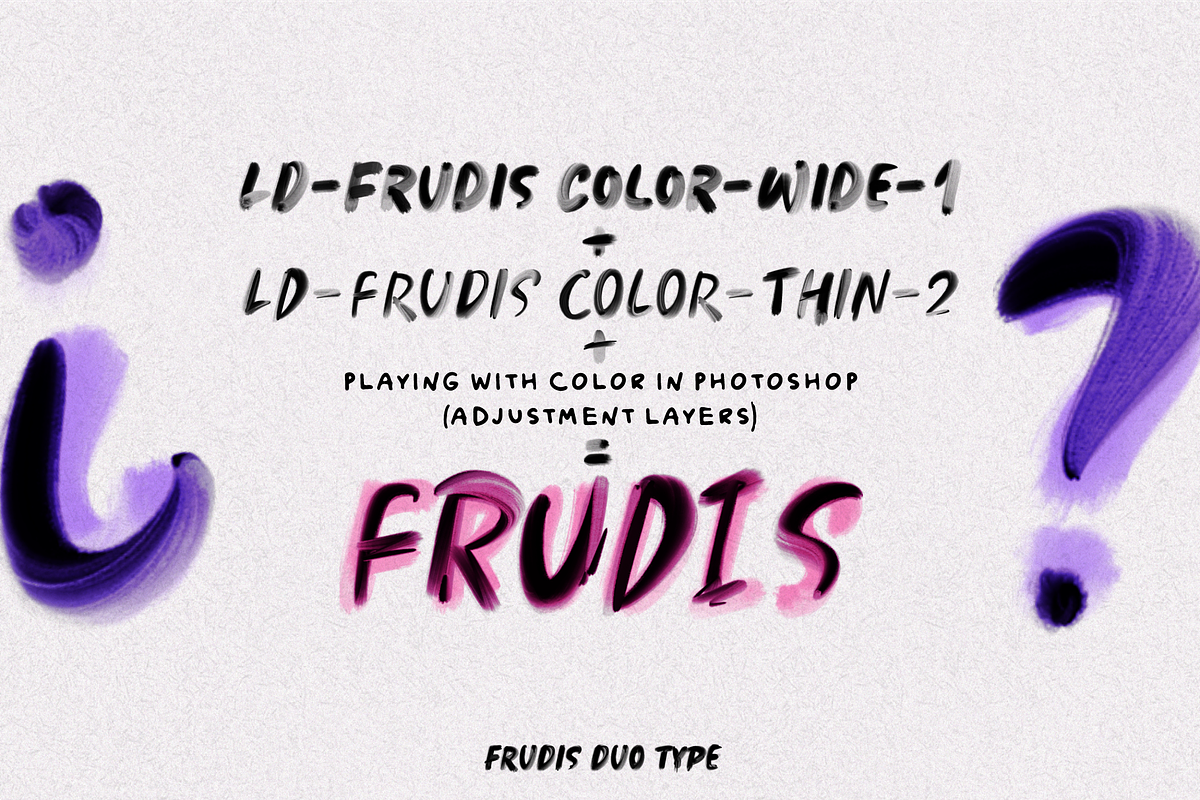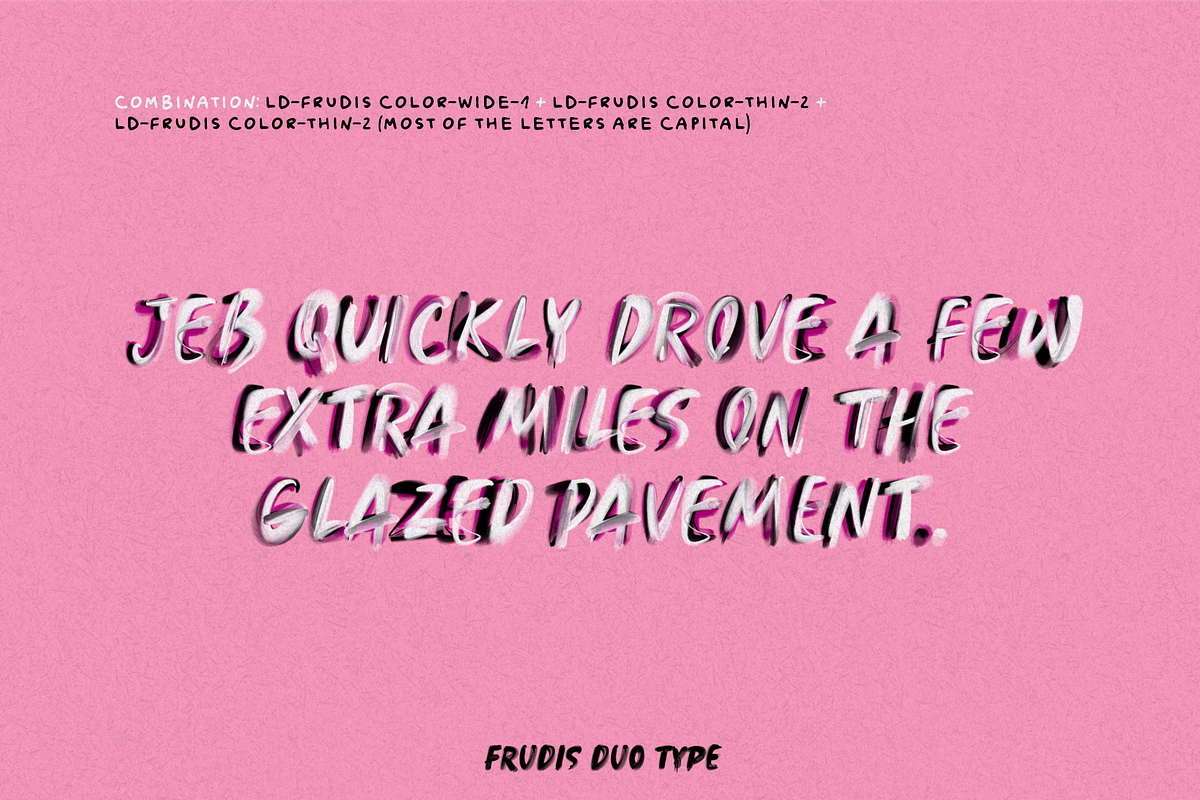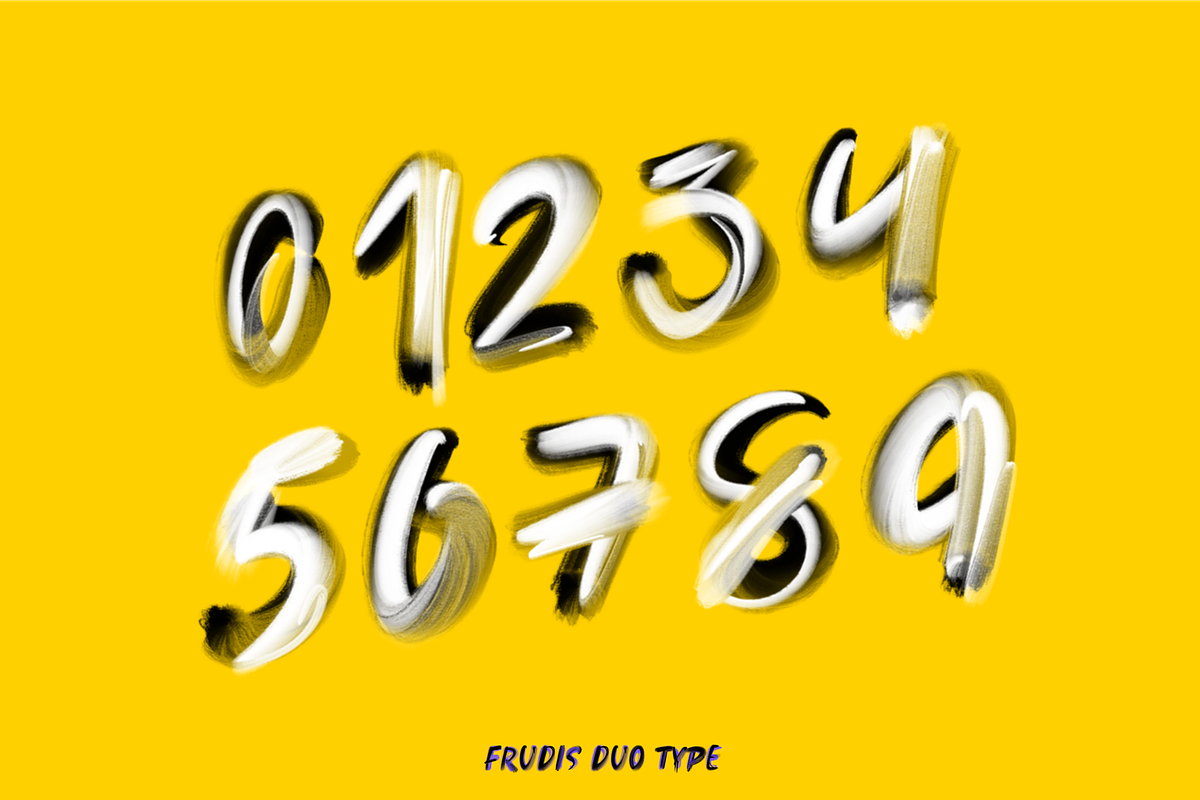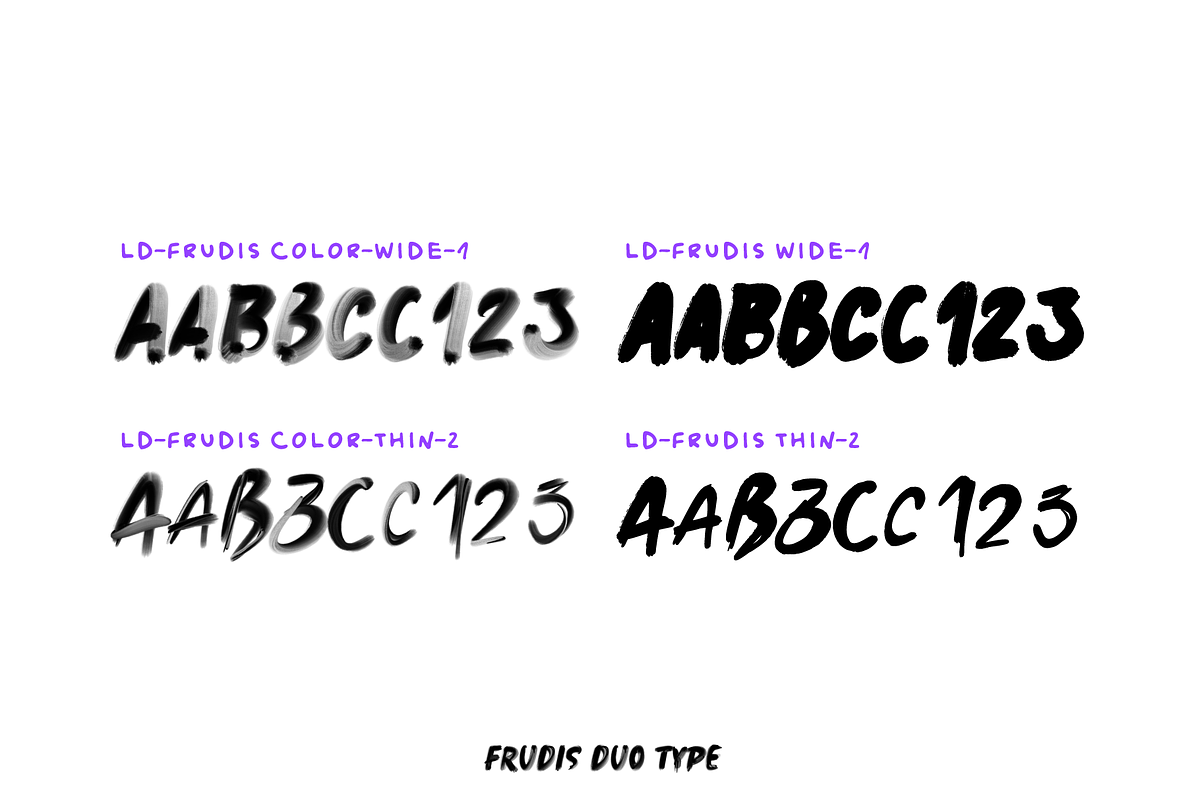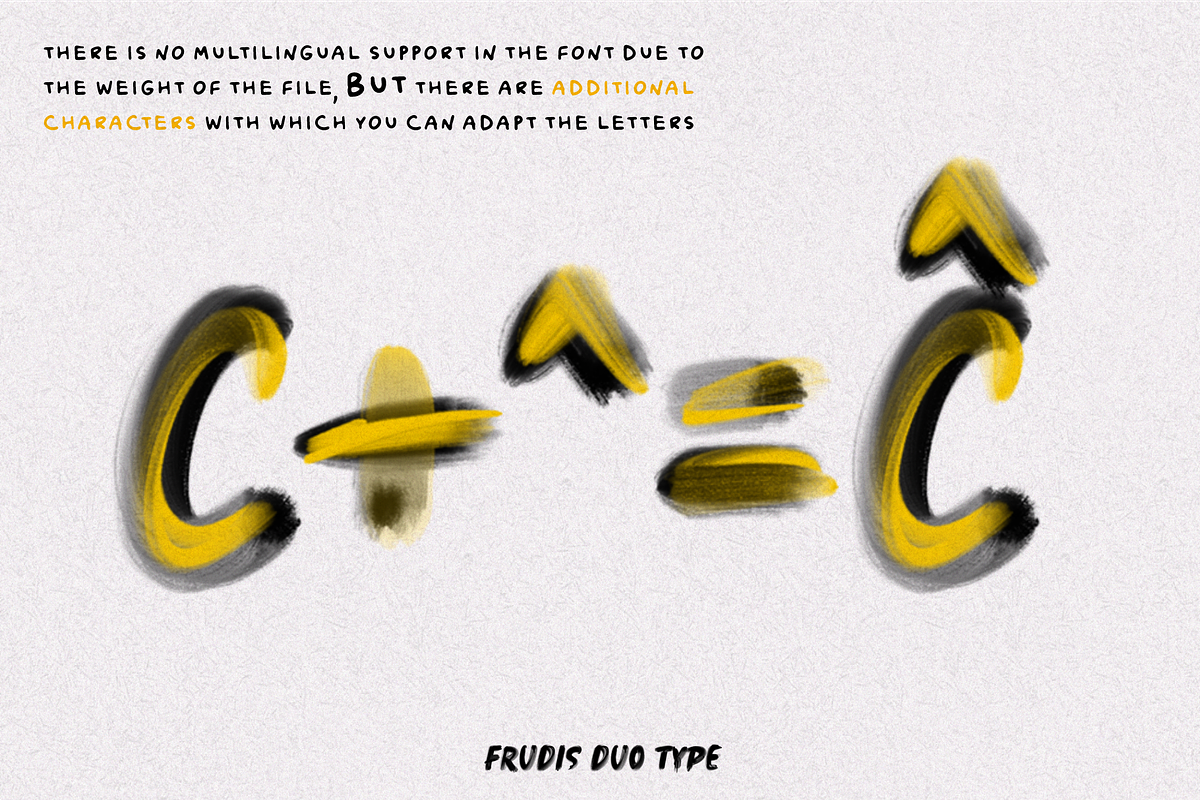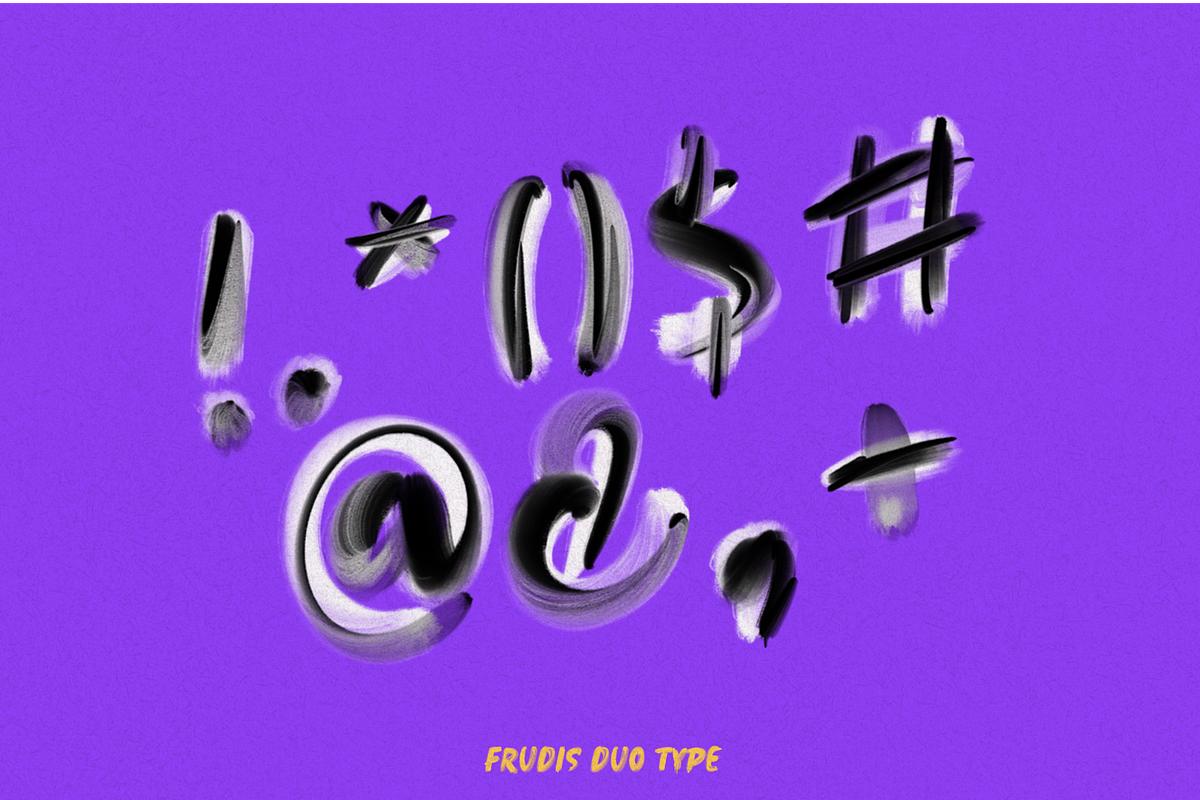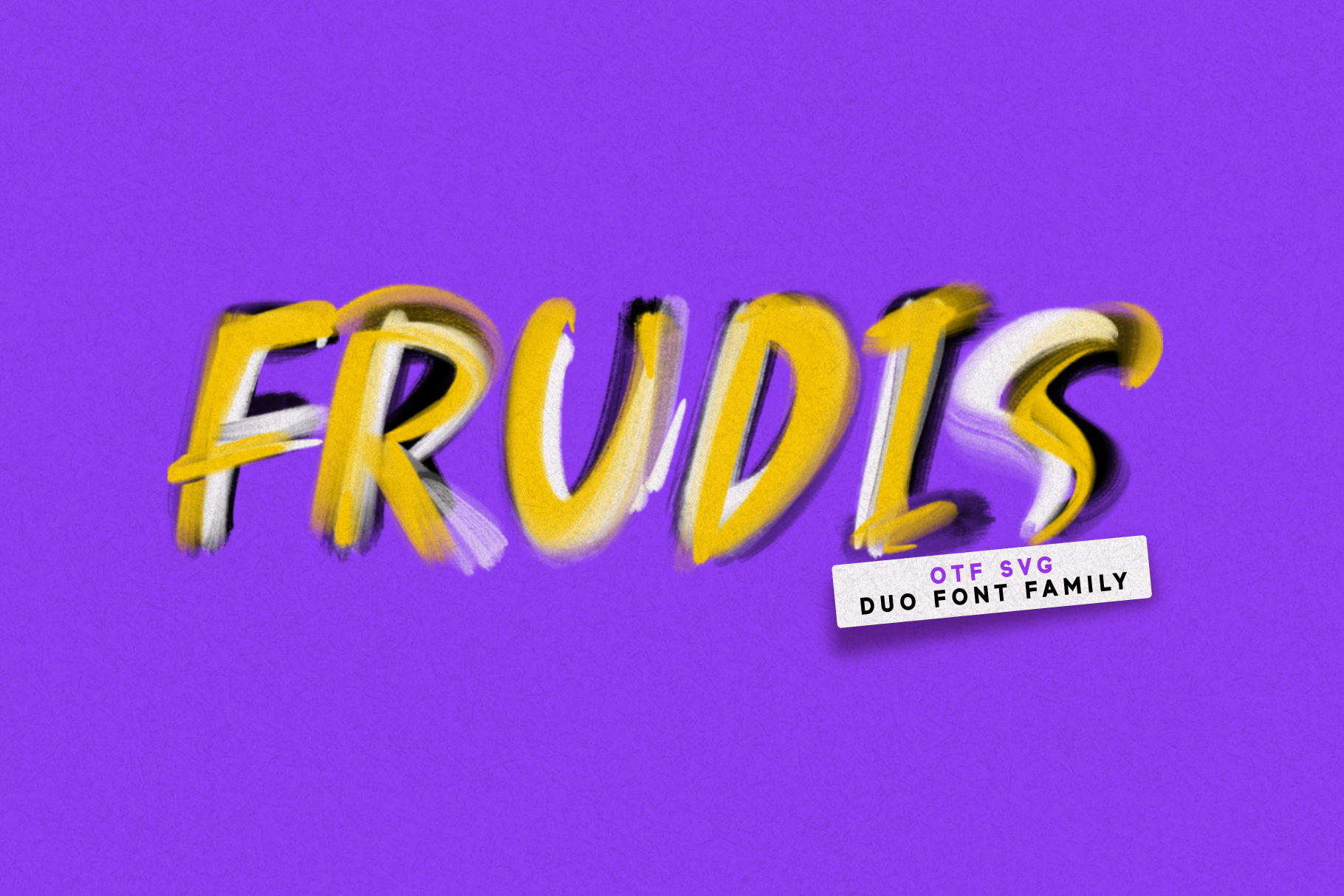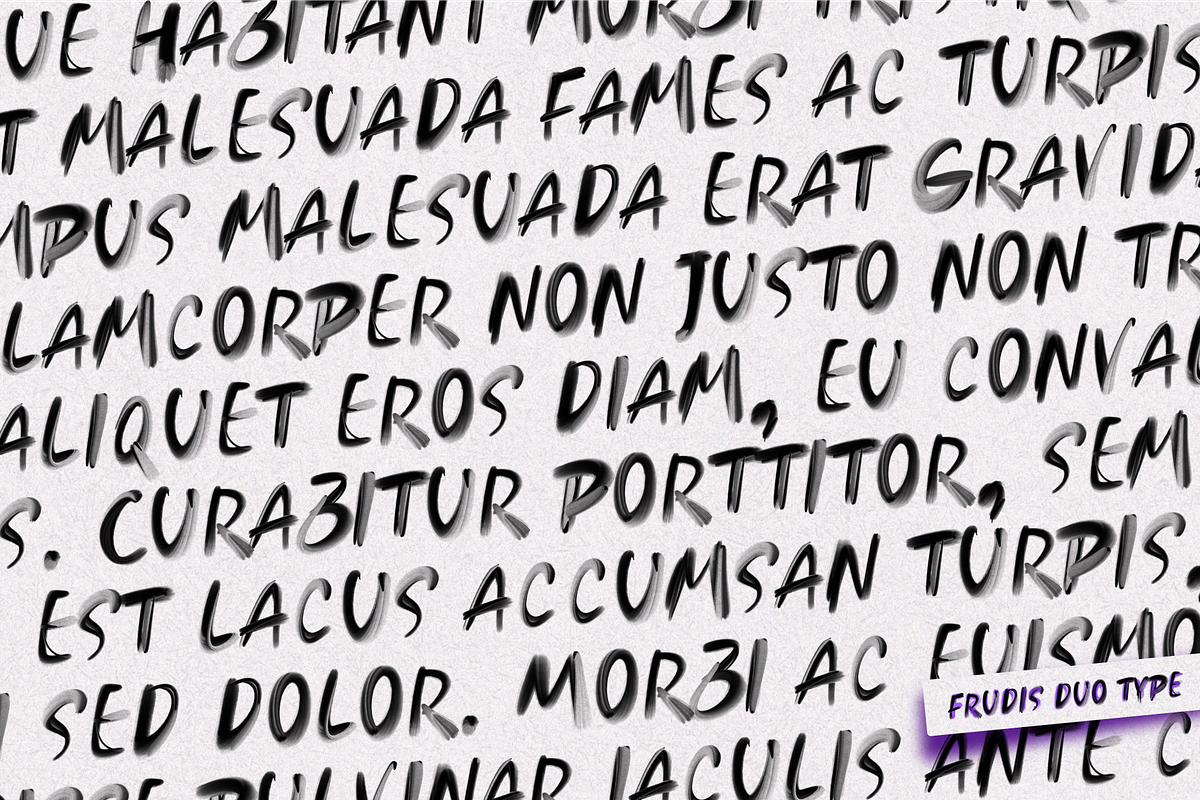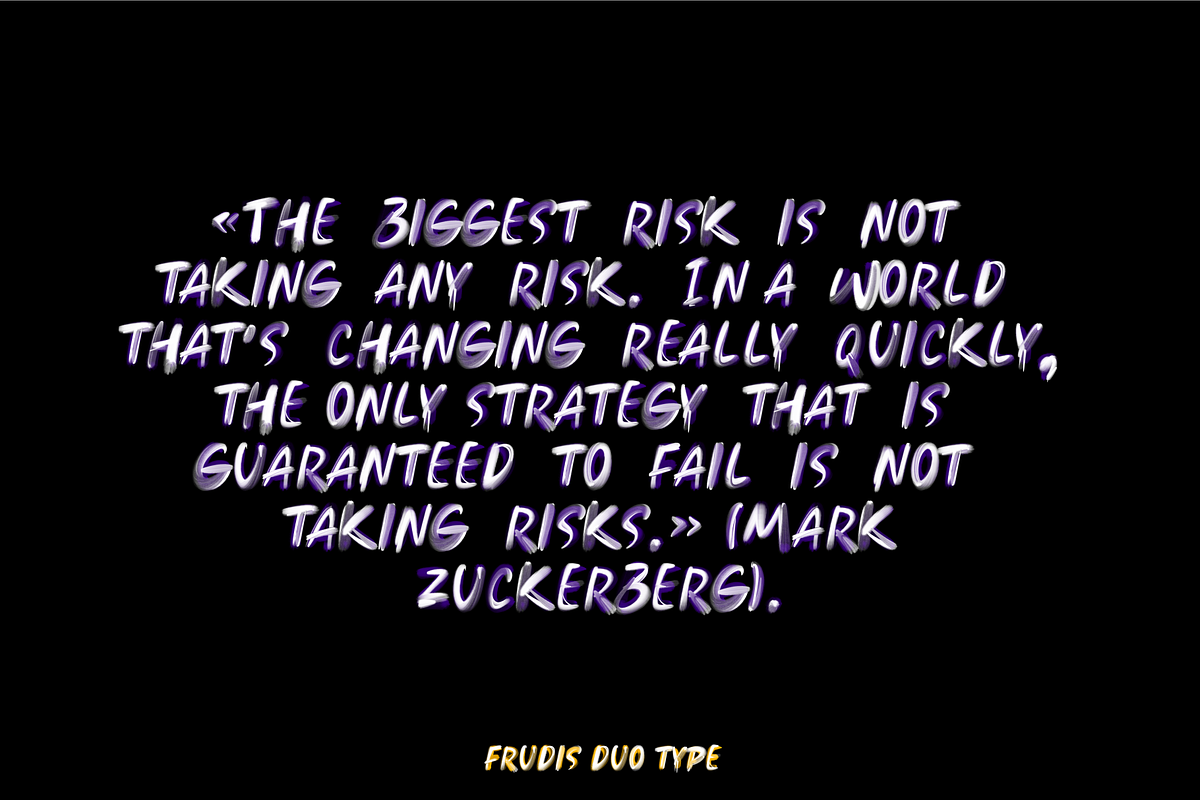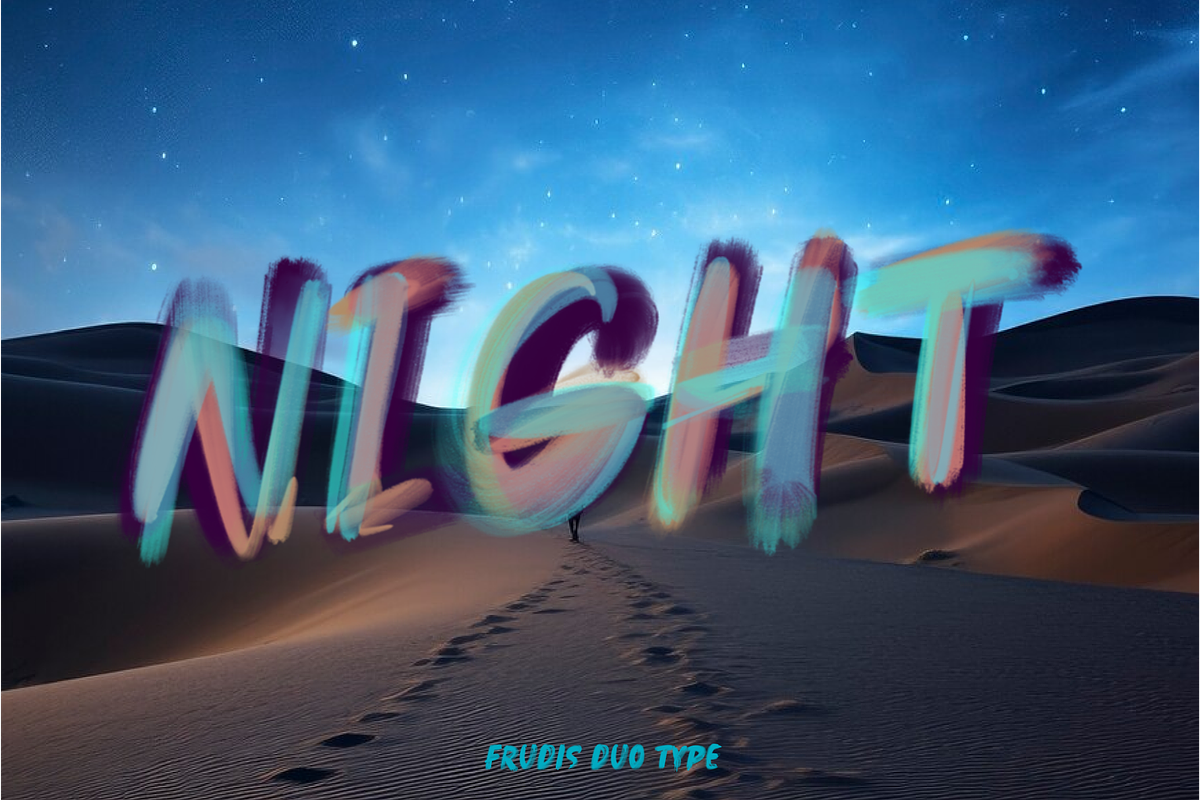
FRUDIS. OTF SVG PAINT Duo fonts.
Unique family of color realistic fonts - FRUDIS. The trick is to have two fonts - bold and thin. Each one can serve individually, but the real magic begins when you stack them in different colors, creating an eye-catching interaction and a unique play of textures and colors.
The letters seem to be saturated with real paint. Their textural diversity gives your text a depth, as if you took a brush and started to create.
By playing with overlays and colors, you create a complex and unique look. Use Frudis to add an artistic touch to your projects. It's great for posters, illustrations, creative headlines, and more.
With Frudis, your text becomes a work of art. These fonts are like paint on your canvas, bringing a unique visual experience to life.
- Duo Font (can be stacked on top of each other)
- 2 OTF SVG font in the family with Brush strokes raster glyph
- Transparency & Texture
- 2 OTF classic system fonts
- Ability to adapt letters to other languages
- Kerning